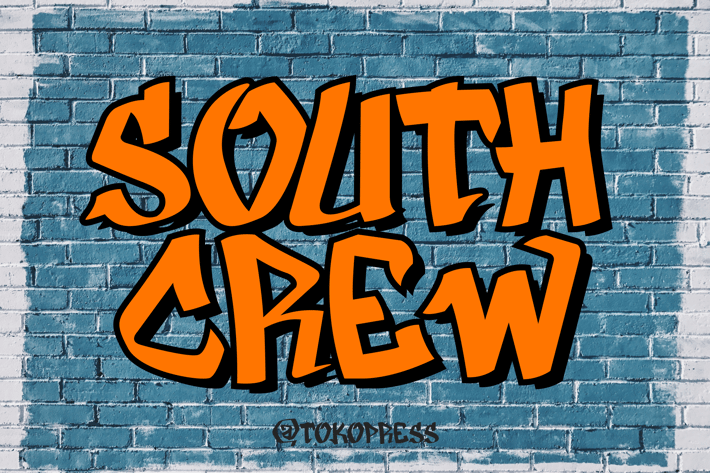
South Crew - graffiti font
South Crew- Graffiti Font
South Crew is a high-impact graffiti-style display typeface that blends chunky proportions with an expressive, streetwise character, built for bold headlines and rebellious branding. Inspired by wall tags and street murals, its bouncy baseline and thick brush terminals radiate urban energy. With its confident and informal letterforms, South Crew fits right into modern hip-hop culture, skate apparel, and digital graffiti artwork.
Whether you're crafting merch designs, YouTube thumbnails, or urban event posters, this font instantly commands attention while staying true to its underground roots.
Perfect for designers and creators targeting the youth market, indie brands, or urban-themed projects, South Crew adds visual power and cultural relevance. Its loud, handcrafted strokes are ideal for branding, street-style apparel, graffiti-inspired ads, or even social media headers looking to break free from clean, minimalist grids.
South Crew doesn’t whisper—it shouts. Give your designs a voice that’s proud, bold, and unforgettable.
✅ Urban-Ready Style
- Chunky, rebellious, expressive vibe with real graffiti influence
- Ideal for poster design, streetwear logos, stickers, wall art, and packaging
✅ Functional & Flexible
- Easy to read yet artistically raw—built for high-visibility projects
- Strong emotional appeal for youth-driven branding and digital design
✅ Letterform Character
- Bold brush structure
- Bouncy baseline
- Uneven stroke weights for authentic tagging energy
- Basic latin A-Z and a-z, Numbers, Punctuation